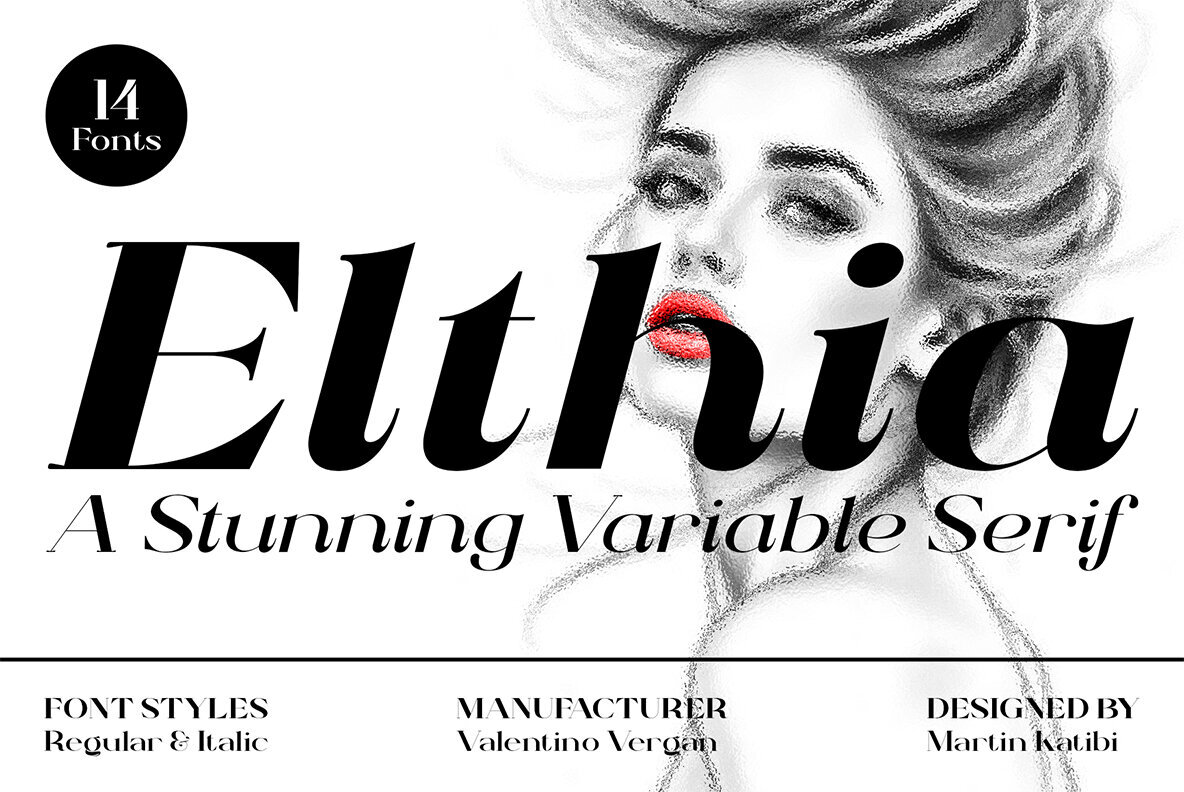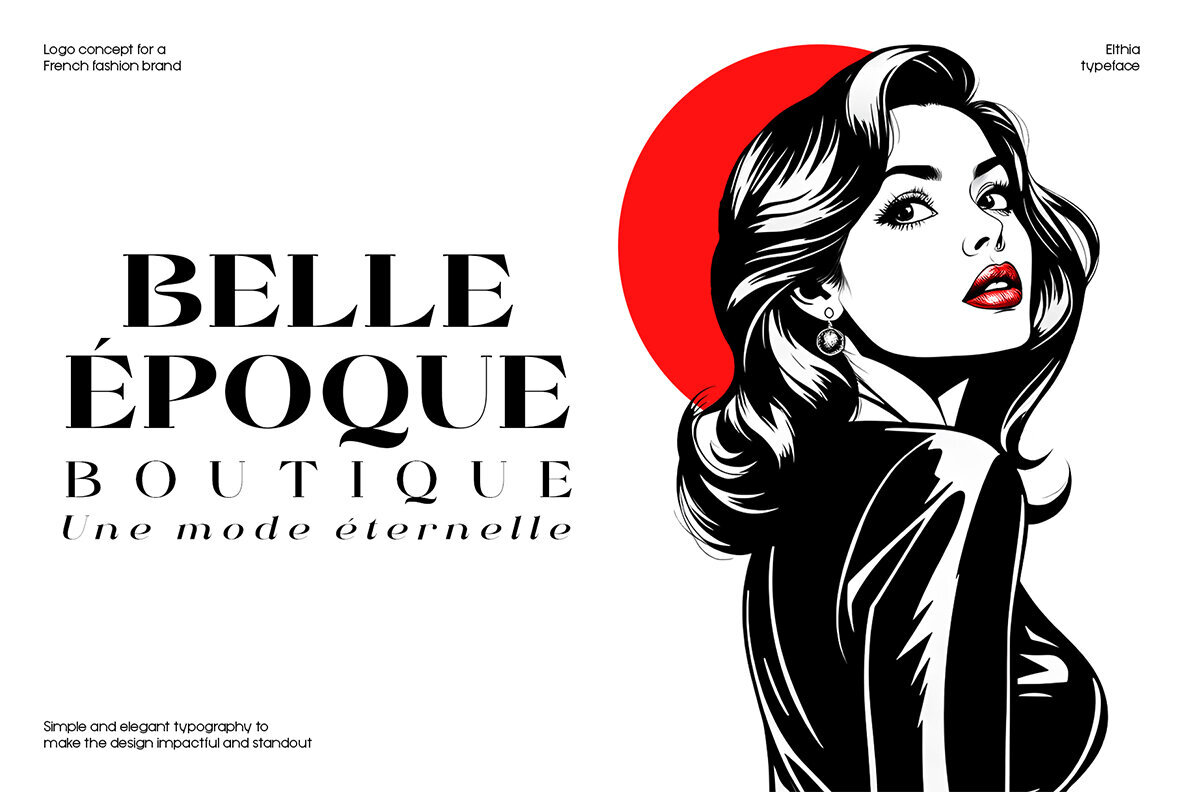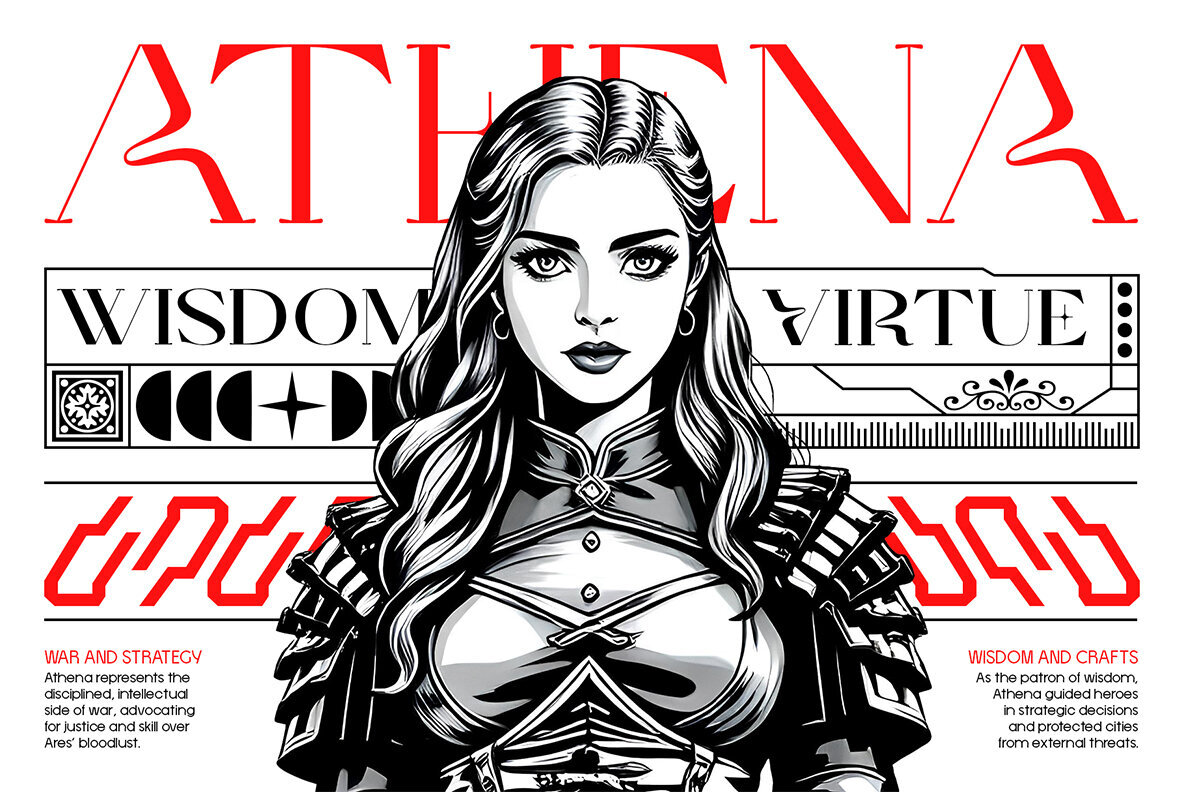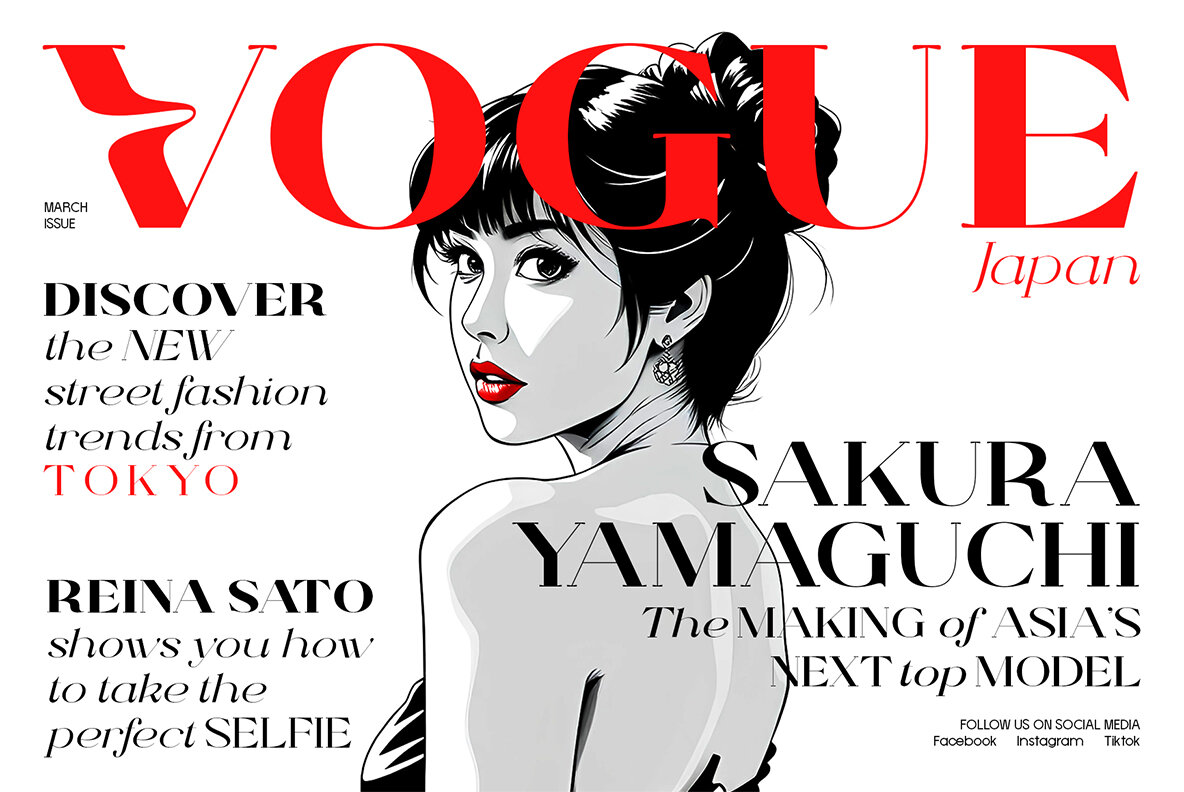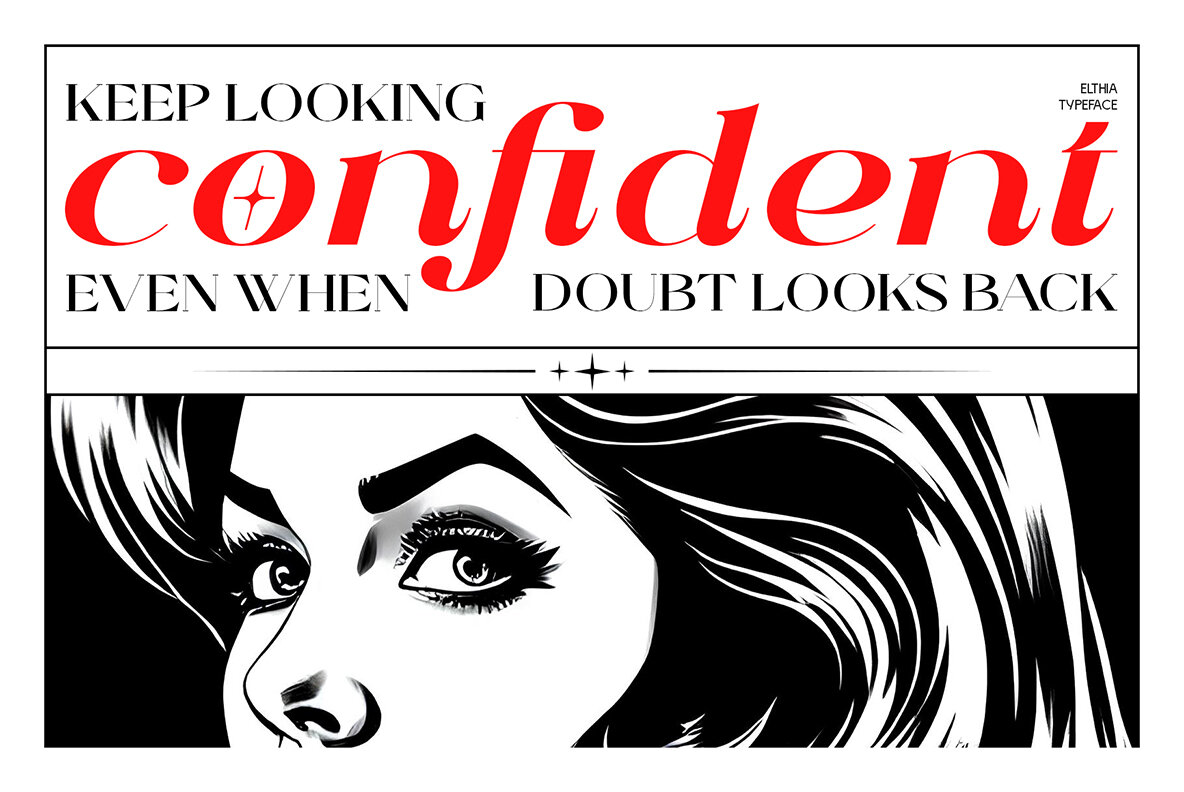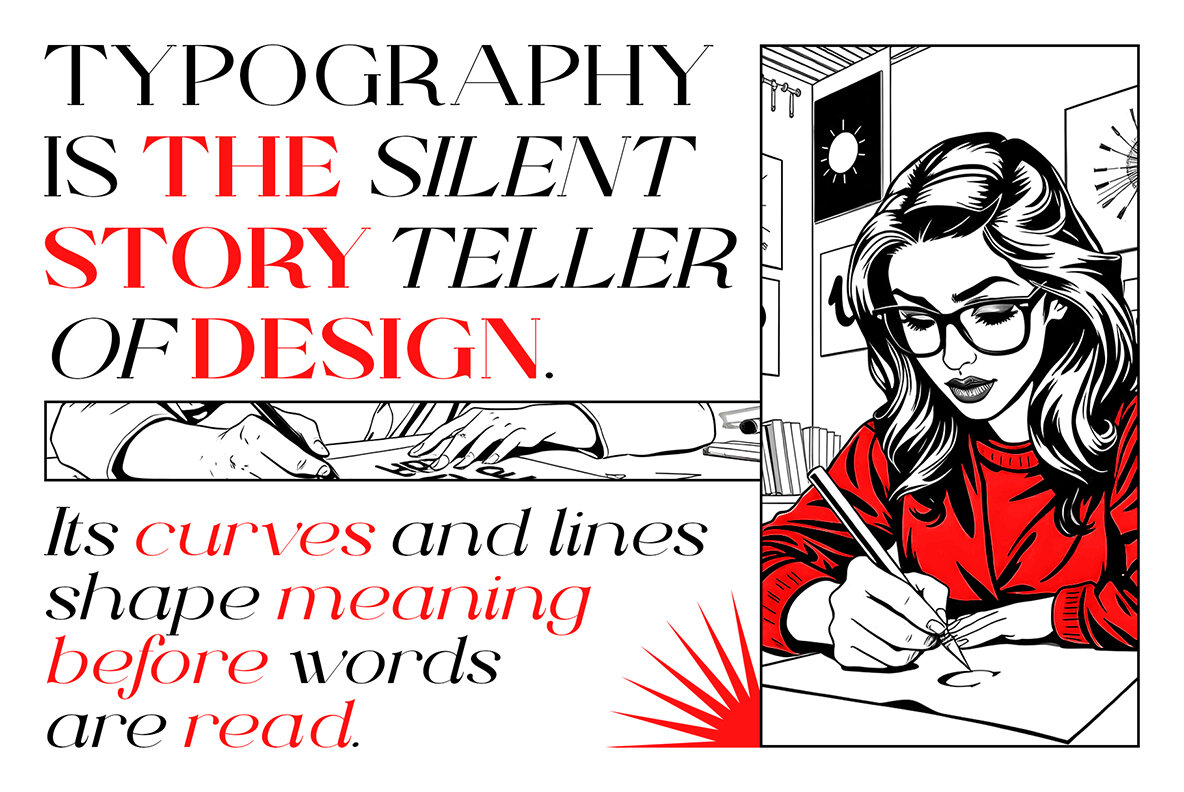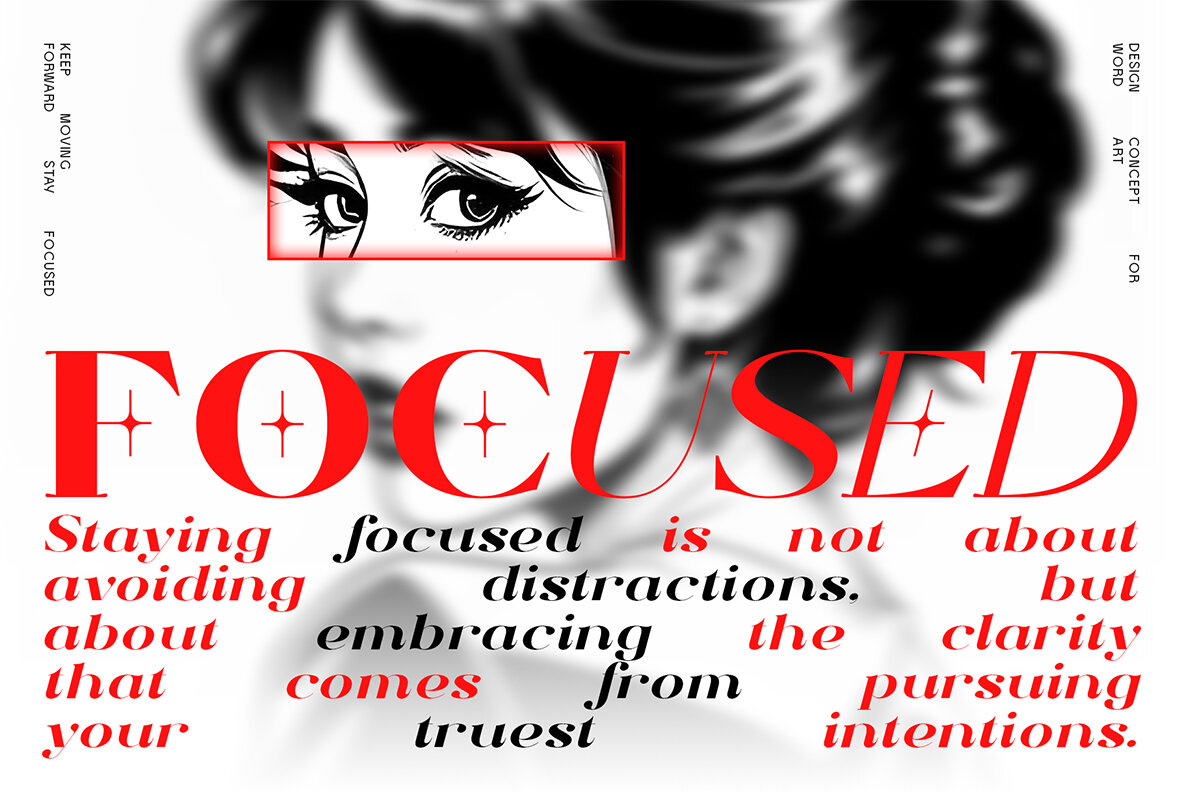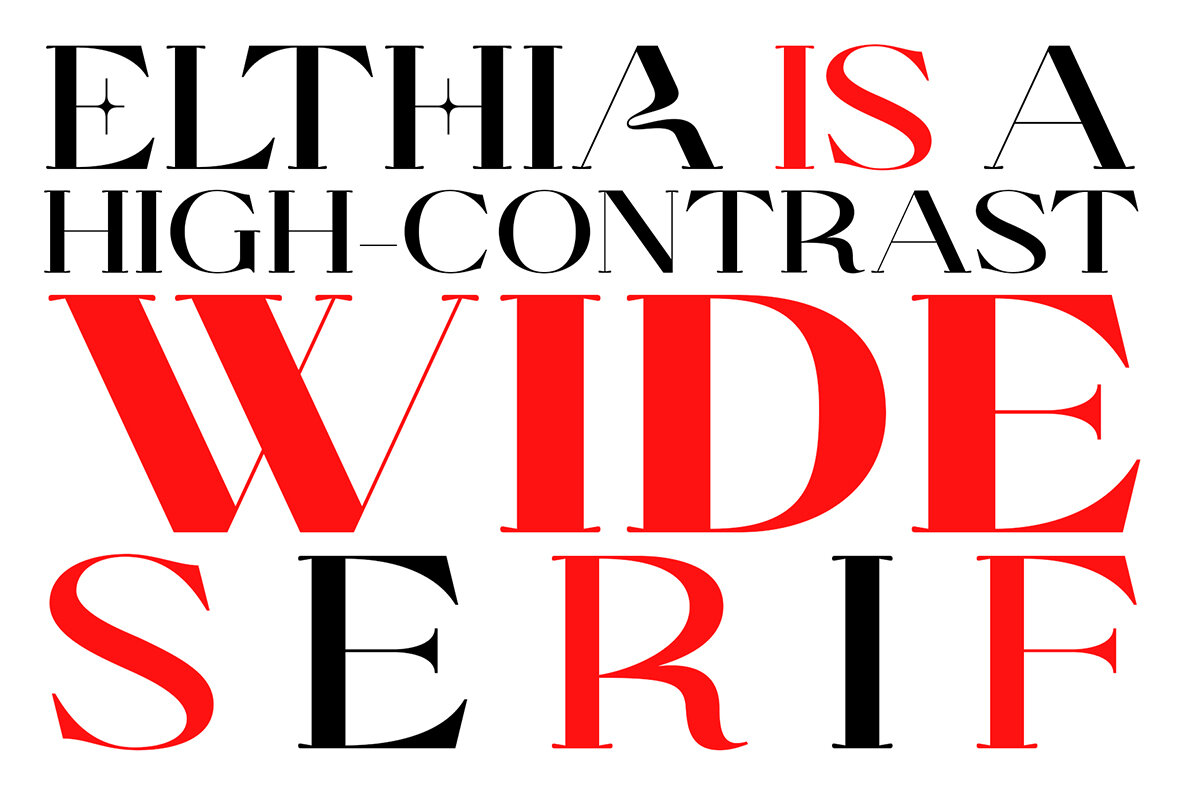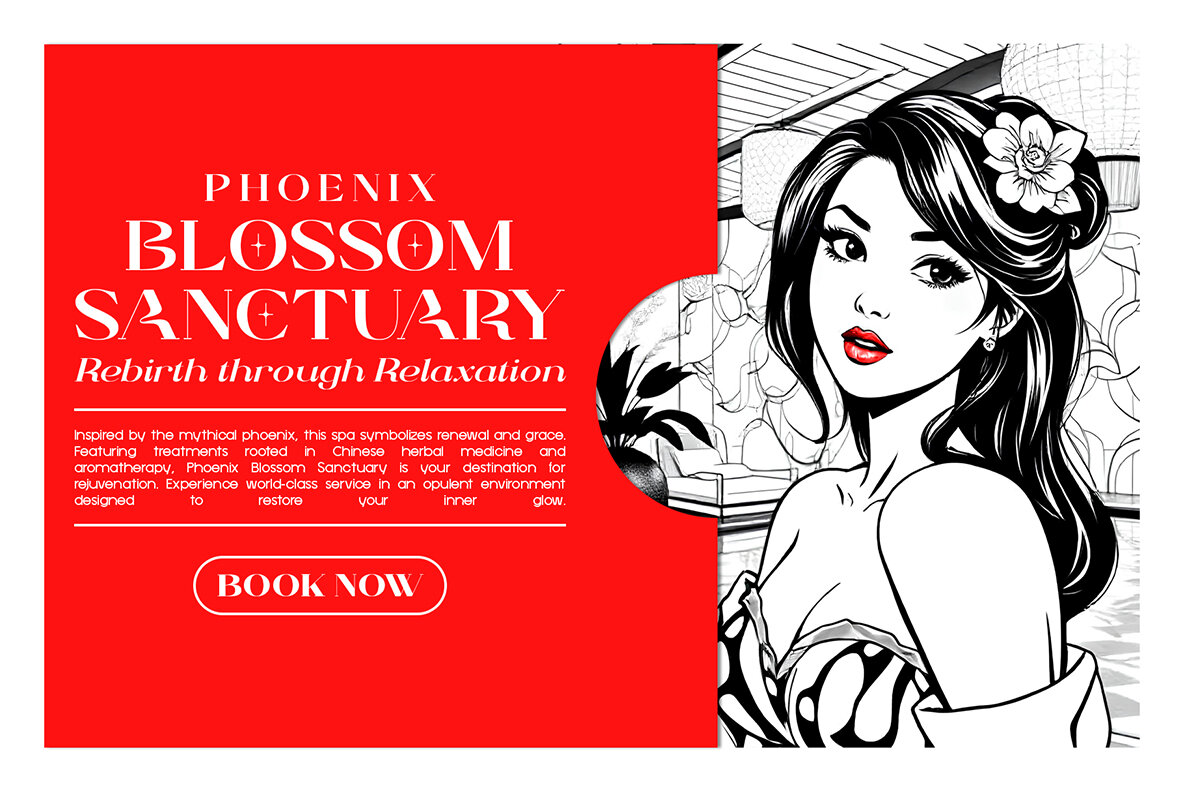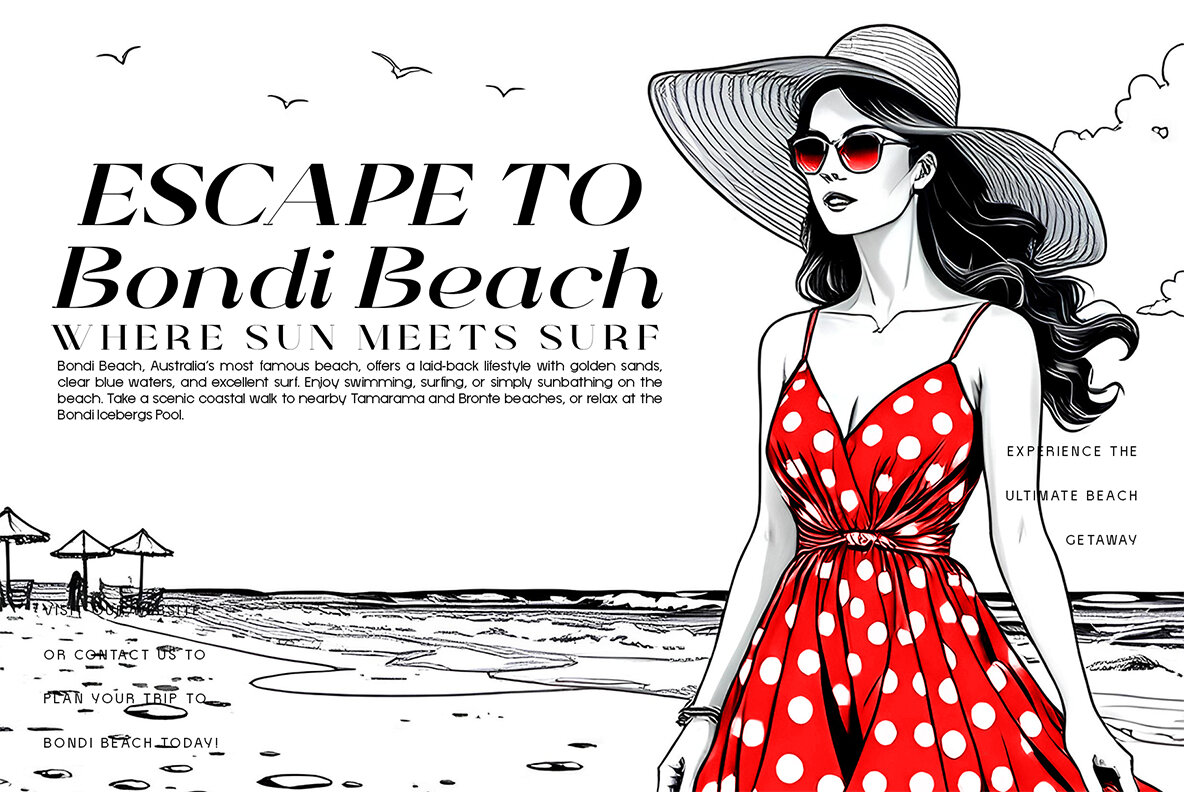
Elthia Font
Introducing Elthia: A Stunning Variable Serif Font Family for the Modern Designer Elevate your designs with Elthia, a captivating variable serif font family that seamlessly blends classic elegance with contemporary flair. Elthia stunning design makes it the perfect choice for graphic designers and advertising agencies seeking to create bold, trendsetting visuals. This versatile typeface boasts 6 weights in both regular and italic styles, offering great flexibility for your creative projects. KEY FEATURES: High-Contrast Elegance: Elthia’s wide, high-contrast design command attention, making it perfect for headlines, logos, and impactful typography. Variable Font Technology: Easily fine-tune weight and style with the cutting-edge variable font version, allowing for precise customization without switching between font files. Unique Character Set: Stand out from the crowd with Elthia’s creative and distinctive glyphs, adding a touch of personality to your designs. Extensive Language Support: With extended Latin characters, Elthia empowers you to create global designs without compromising on style. PERFECT FOR: Elthia is the go-to choice for graphic designers and advertising agencies seeking to create modern, trending designs that captivate audiences. Its versatility shines in both large display settings and body text, ensuring your projects always look polished and professional. Don’t settle for ordinary typography. Elevate your design game with Elthia and watch your creations come to life with sophistication and style. Download now and experience the perfect blend of timeless elegance and contemporary design.